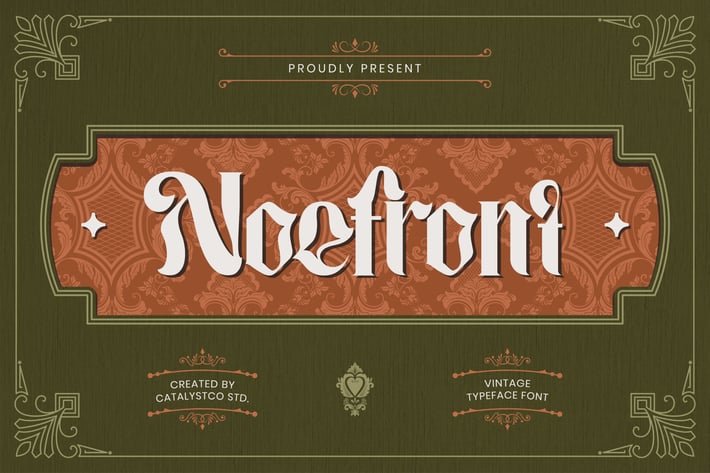
Noefront Vintage Typeface Font
Noefront is a decorative vintage blackletter typeface inspired by classic medieval lettering and ornate historical signage. It features bold angular strokes, elegant flourishes, and refined gothic curves that create a strong, authentic, and traditional look. The clean structure makes it readable while still preserving dramatic blackletter aesthetics.
Packed with uppercase, lowercase, numerals, and punctuation, this font is crafted for high-impact titles, heritage branding, packaging, whiskey labels, certificates, logotypes, posters, and ornamental vintage layouts. A perfect blend of gothic elegance and timeless craftsmanship.
Relevance and Use Cases is perfect for vintage label design, gothic branding, retro packaging, whiskey and brewery labels, certificate layouts, ornate posters, old signage designs, typographic merchandise, and classic decorative titles that need a strong historical aesthetic.
Ligatures & Alternate